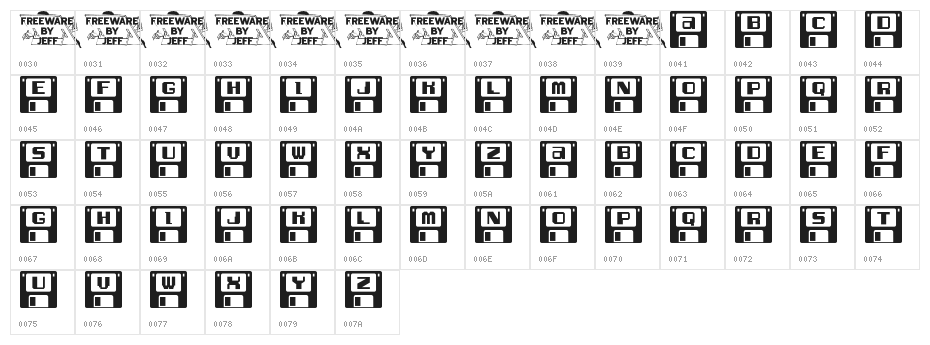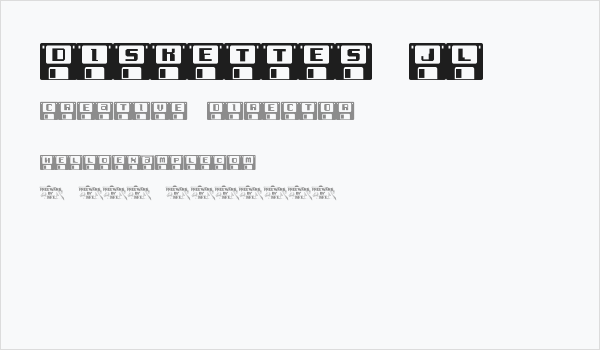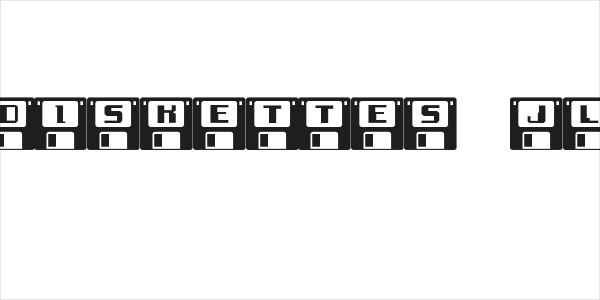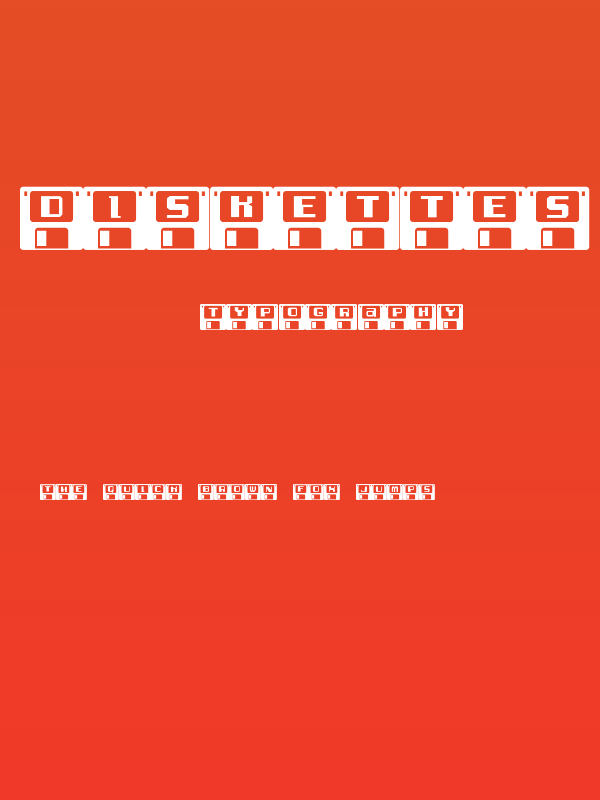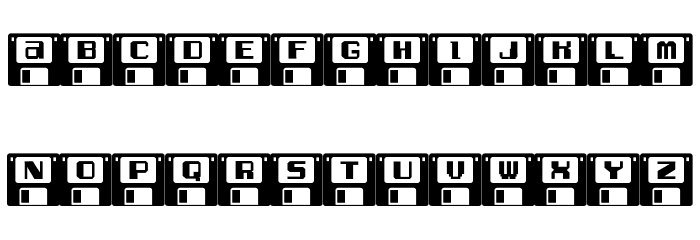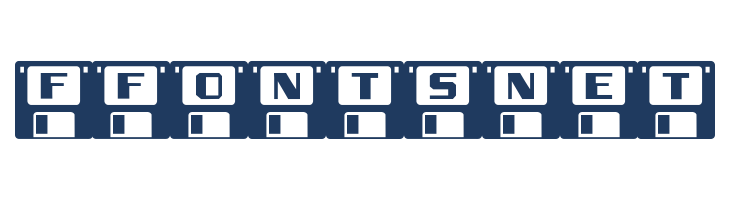
Diskettes JL Font
Diskettes JL Description
This font features a unique and playful design where each letter is encased within the shape of a floppy disk, evoking a sense of nostalgia for the early days of computing. The characters are bold and blocky, with a uniform width that ensures readability while maintaining the novelty of the design. The use of floppy disks as a backdrop for each character adds a distinctive retro aesthetic, making it ideal for projects that aim to capture a vintage tech vibe. The font is consistent in its presentation, with each letter clearly defined against the black and white contrast of the disk design.
| Proposed Projects | Ideal for retro-themed posters, tech event flyers, nostalgic branding, or any project seeking a vintage computing aesthetic. |